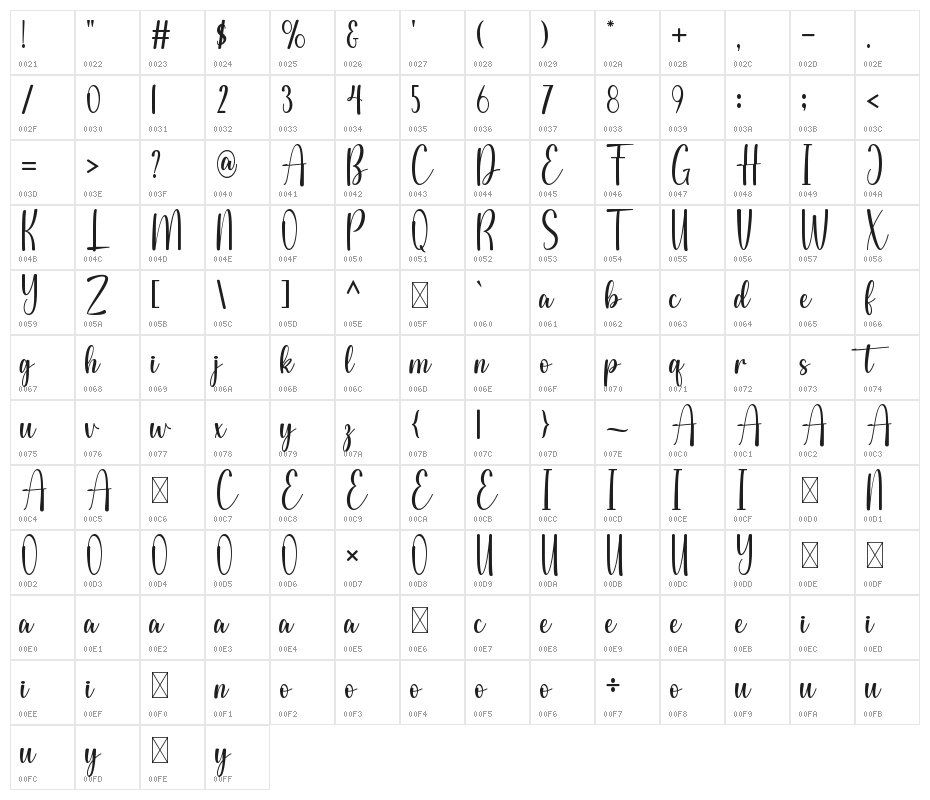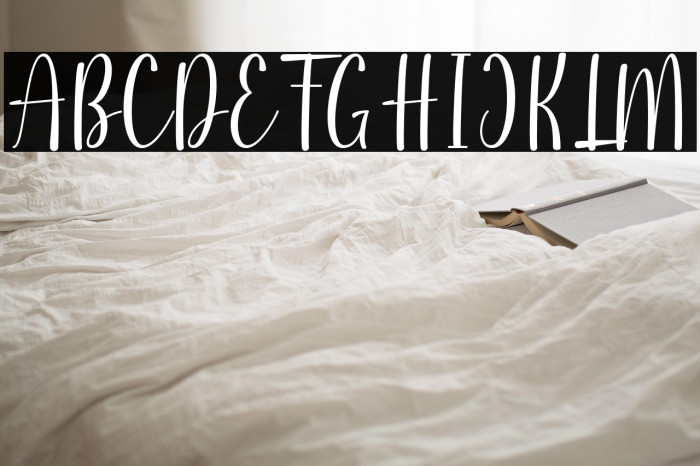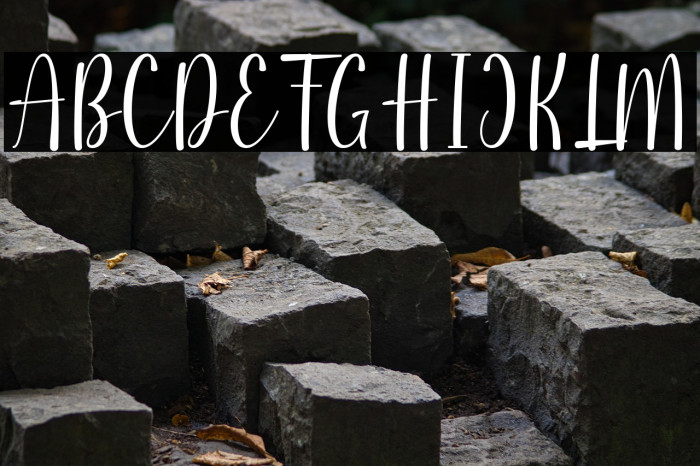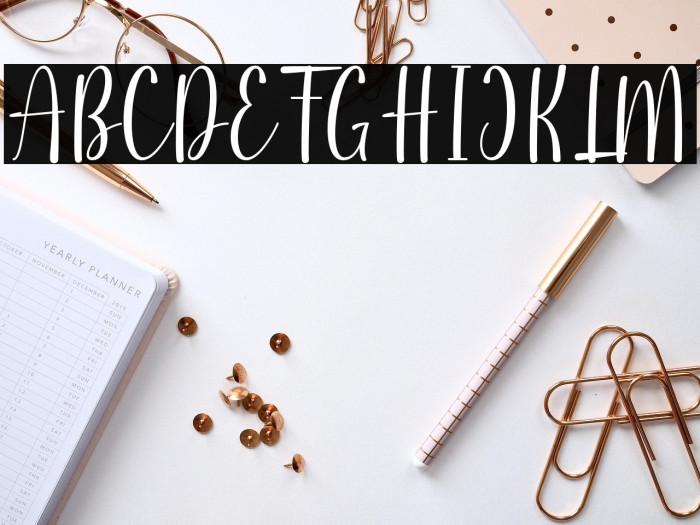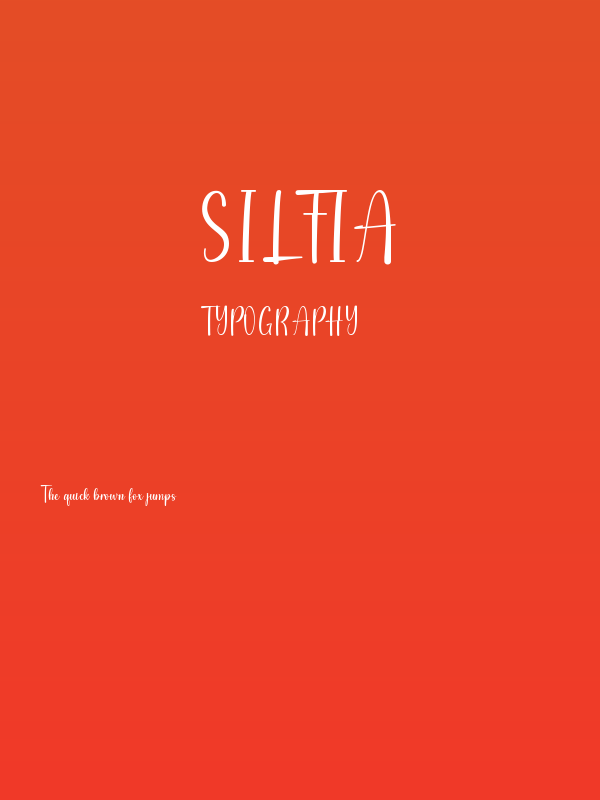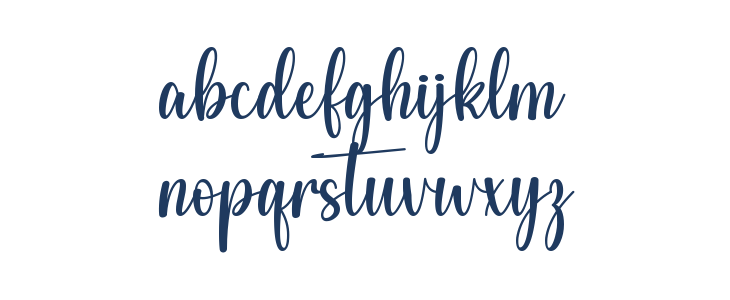
Silfia Font
Silfia Description
This font features a playful and elegant script style with a handwritten touch. The uppercase letters are tall and slender, with a slight slant that adds a dynamic flow. The lowercase letters are more rounded and connected, creating a smooth and continuous line. The numerals are consistent with the overall style, maintaining the same playful and elegant feel. Special characters are well-integrated, ensuring versatility in various design contexts. The font's overall appearance is both modern and whimsical, making it suitable for creative and expressive projects.